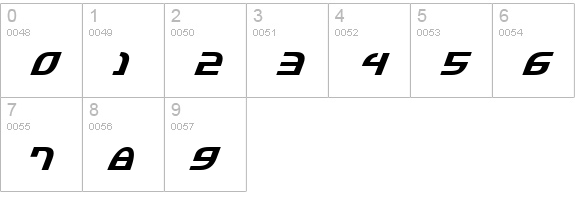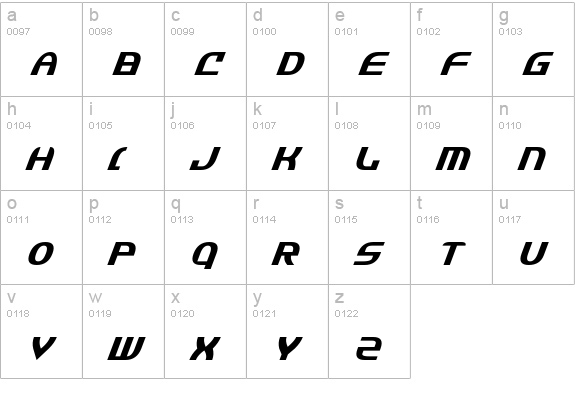
Jannisaries Italic is a distinctive, italic variant in the Jannisaries typeface family \xE2\x80\x94 well suited to design and typography projects.
Introducing Jannisaries Italic, a captivating font that exudes elegance and sophistication with its sleek and stylish design. This font is a perfect choice for any project requiring a touch of class and professionalism. The Jannisaries Italic font features flowing, italicized letterforms that effortlessly blend modern aesthetics with a hint of traditional charm. Its graceful curves and well-balanced proportions make it a versatile option for a wide range of design applications, including branding, advertising, headlines, and more. What sets Jannisaries Italic apart is not just its exceptional visual appeal, but also its accessibility. It is a free font, generously made available for download at FontsMarket.com. This means that designers, creatives, and enthusiasts alike can easily access and utilize this remarkable font without any financial constraints. With Jannisaries Italic, the possibilities are endless. Let your creativity soar as you explore the versatility and beauty of this font, adding a touch of refinement and sophistication to your projects. Whether you're designing a logo, creating eye-catching headlines, or crafting an elegant invitation, Jannisaries Italic is here to elevate your work and leave a lasting impression.